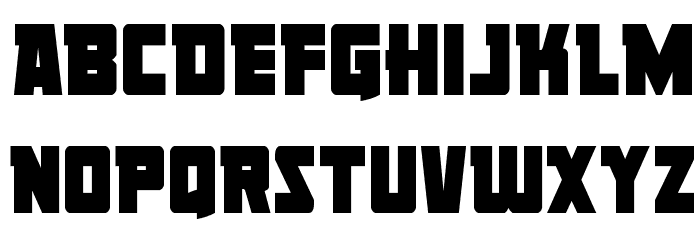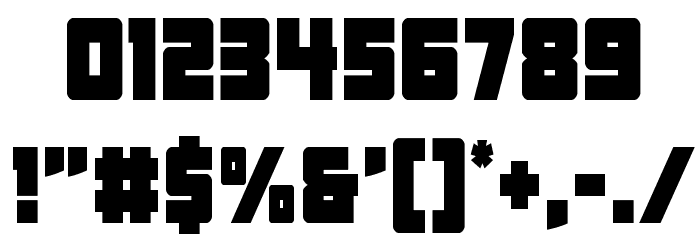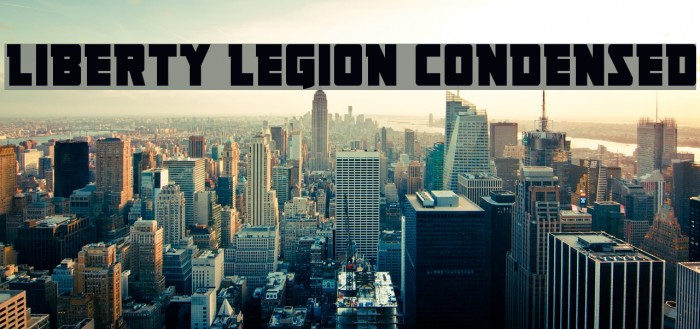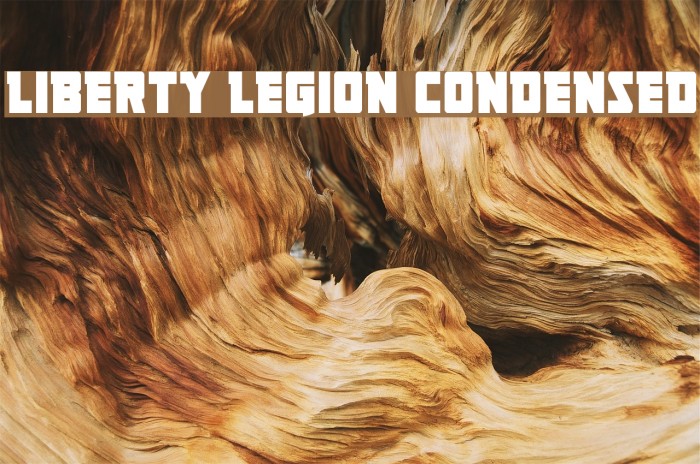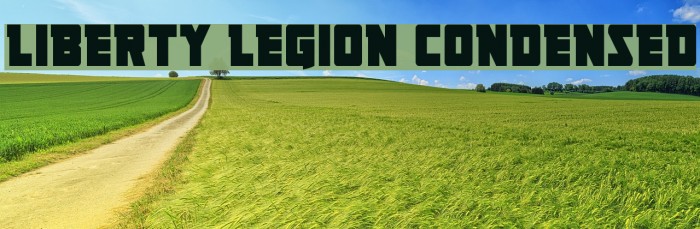
Liberty Legion Condensed Font
This font features a bold and impactful design with a condensed structure, making it ideal for attention-grabbing headlines and titles. The characters are blocky and geometric, with sharp angles and a uniform stroke width that conveys strength and stability. The uppercase and lowercase letters maintain a consistent style, enhancing readability while preserving a distinct visual identity. The numerals and special characters are crafted to match the boldness of the alphabet, ensuring a cohesive look across all text elements. This font's design is reminiscent of industrial or military aesthetics, making it suitable for projects that require a strong, authoritative presence.
A bold, condensed font with a geometric, industrial style.
- Proposed Projects: Ideal for posters, logos, branding, and any design requiring a strong, impactful typeface.